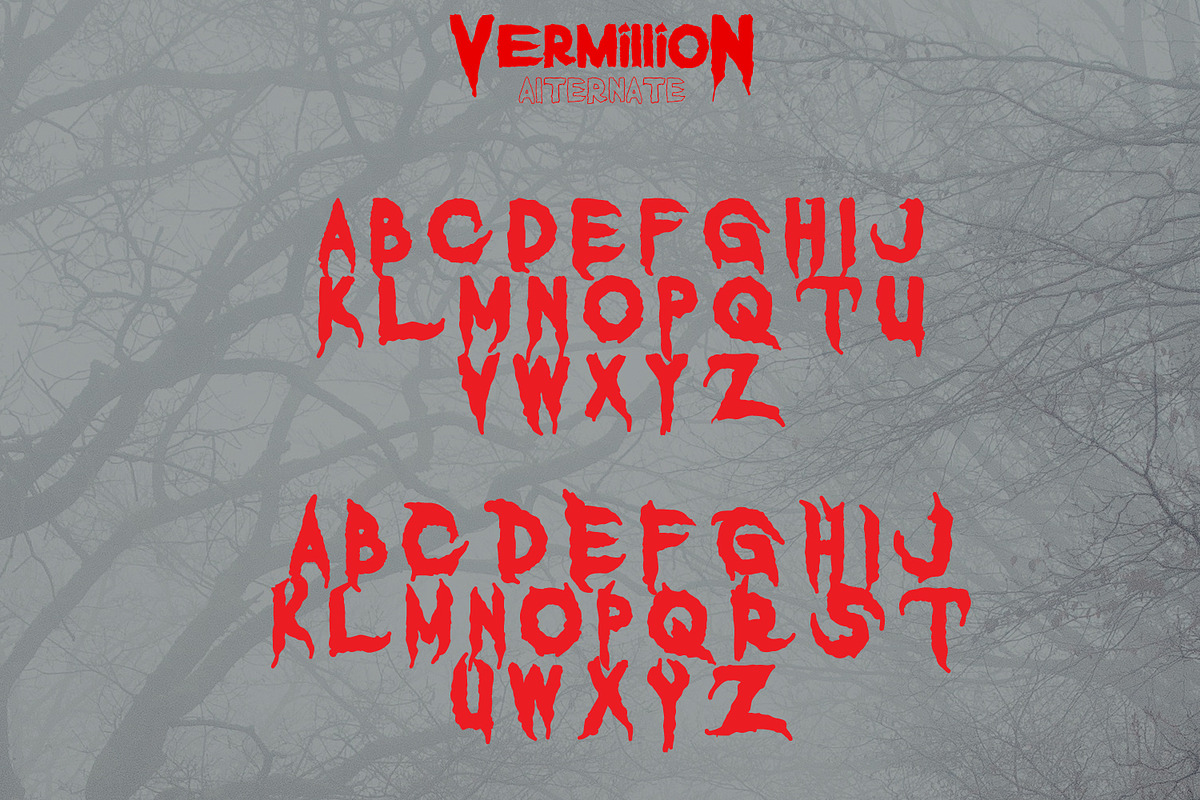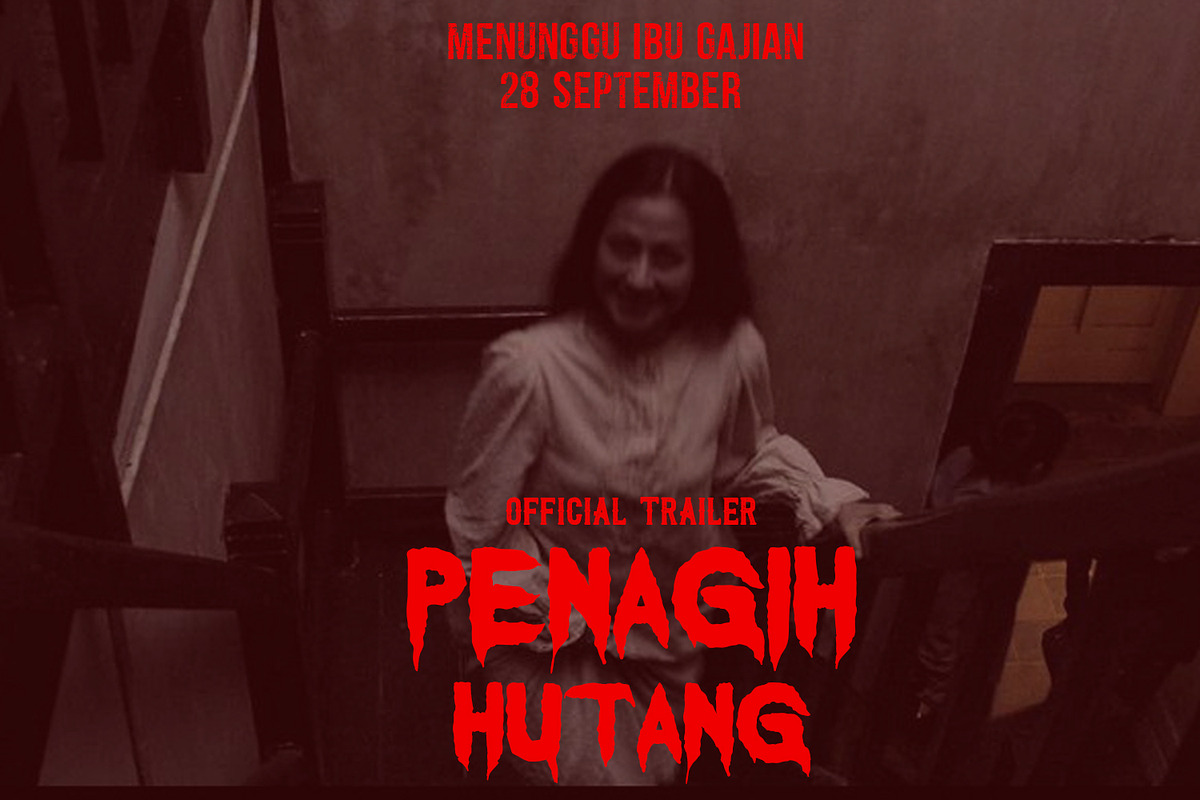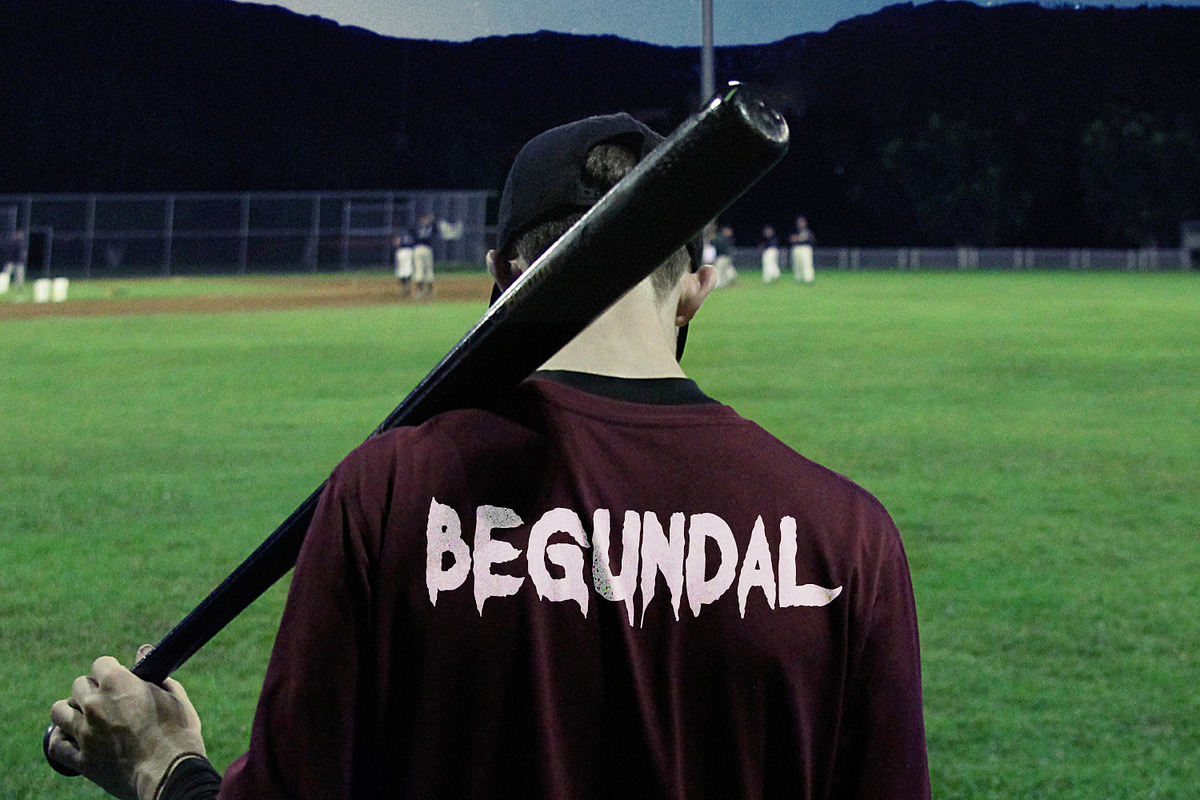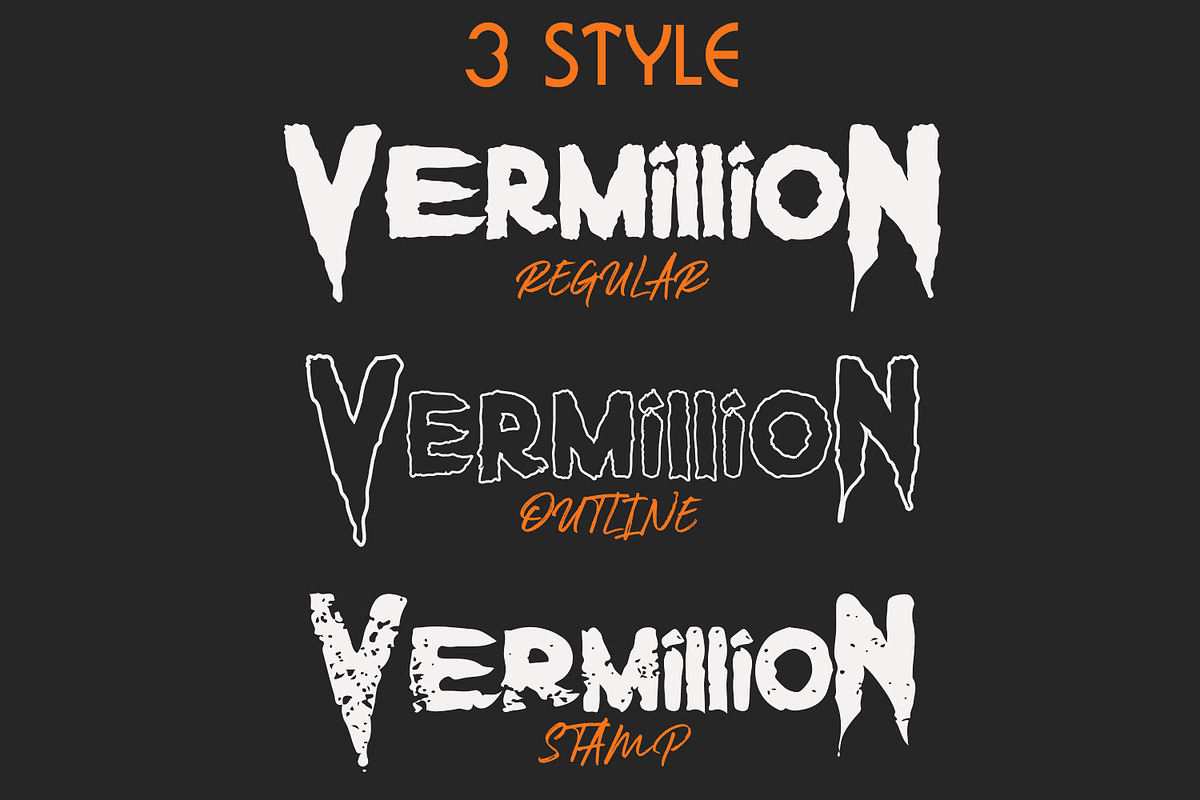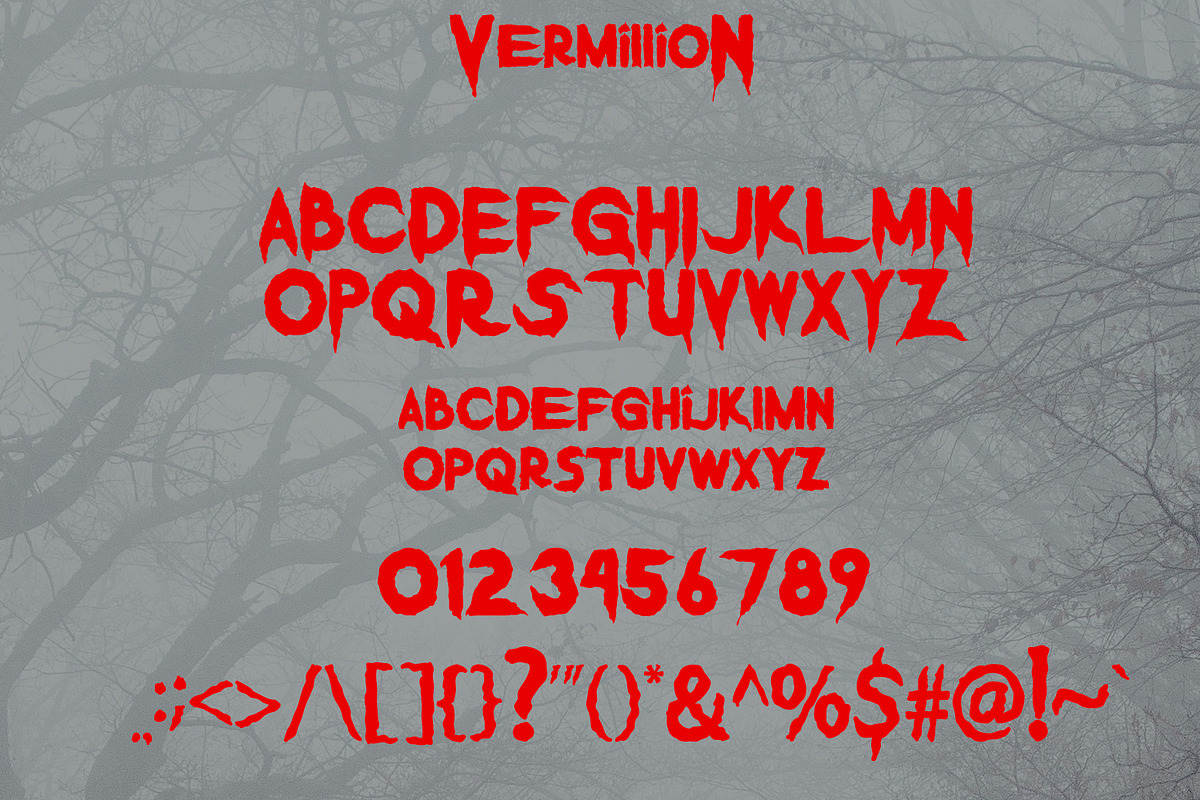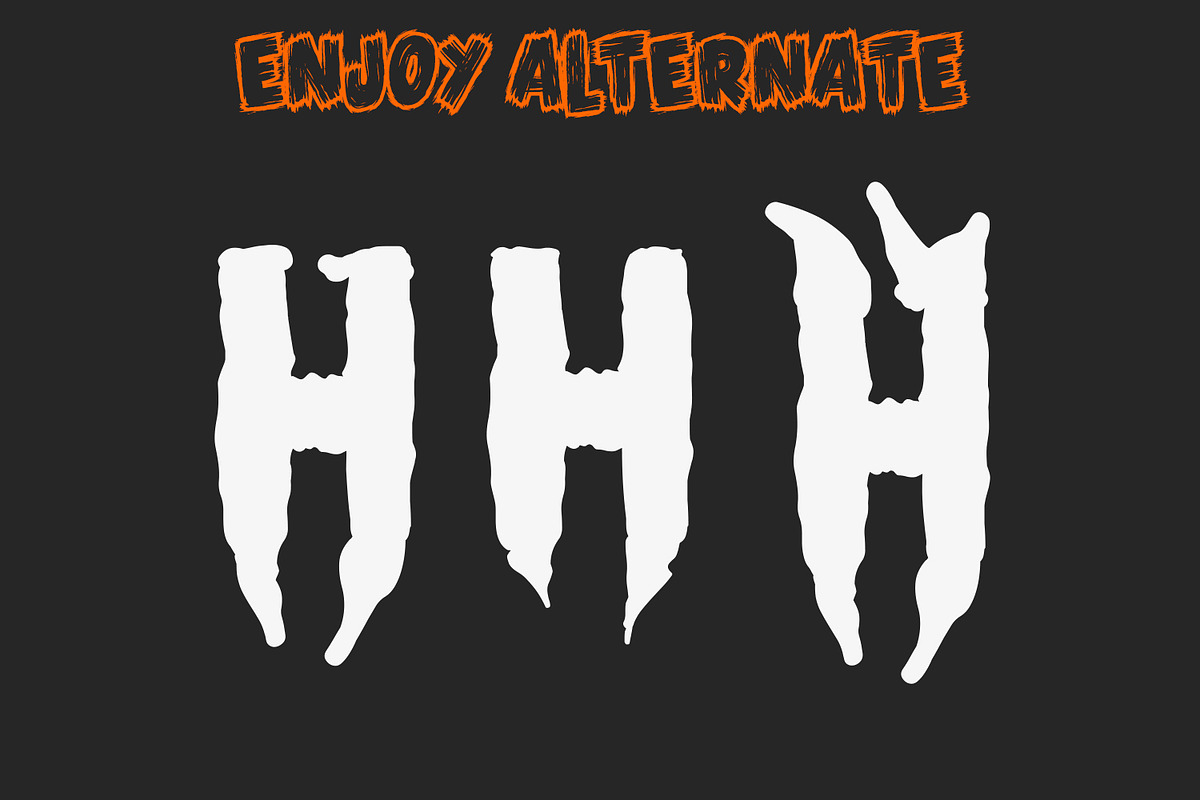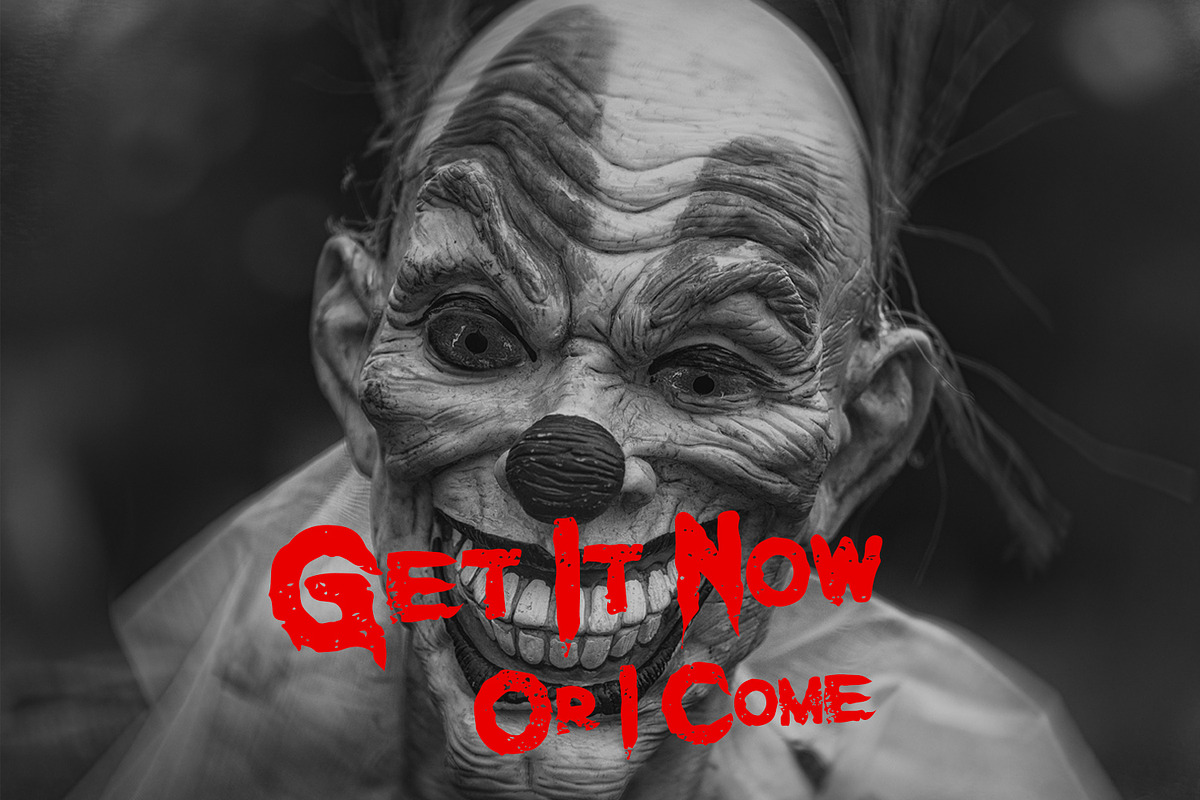
Vermillion Halloween Font
Inspired by horror films and Halloween, Vermillion Halloween is a bold and scary display font with sharp edges. This will add a touch of your design theme that is very suitable for use in your design
and vermillion have 3 different styles: regular, outline and grunge
4. Alternative characters